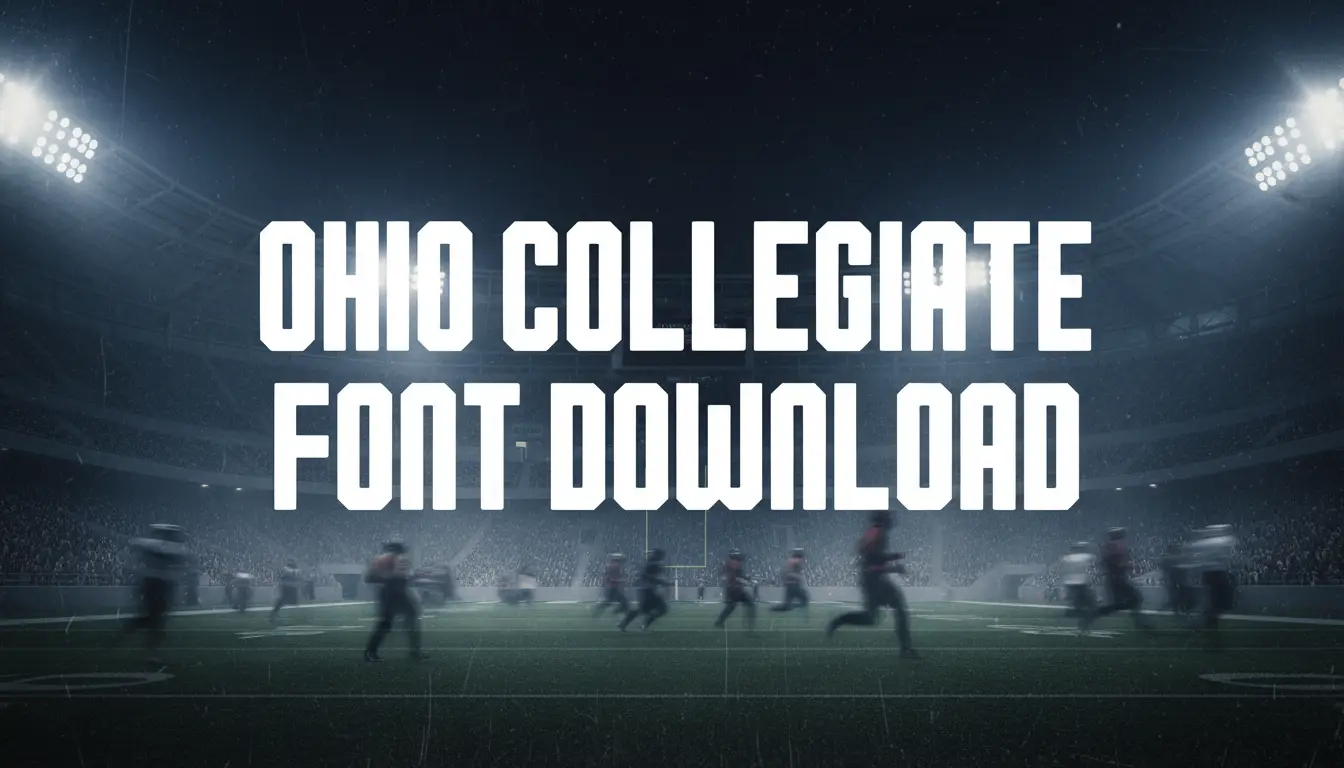
Ohio Collegiate Font
Ohio Collegiate is a fancy font designed by GeronimoFonts. It's a decorative display font with plenty of personality, made to grab attention. It's a free download, and you can try it with your own text in the preview above first.
- Designer: GeronimoFonts
Ohio Collegiate covers the full alphabet in upper and lowercase, plus all ten numbers, so you can set names, dates and prices without switching fonts. Everyday marks like &, !, # and $ are there too. There are no accented letters like é or ñ, so it's best kept to English text.
Think of Ohio Collegiate for posters, logos and eye-catching headlines. Use it for one standout word or headline and let simpler fonts handle the rest.
No. Ohio Collegiate has no accented letters such as é, ñ or ü, so it's best for English text.